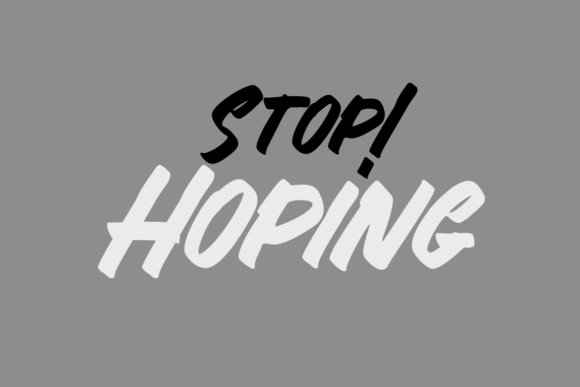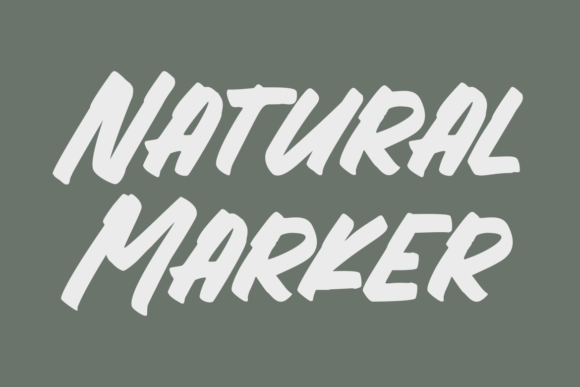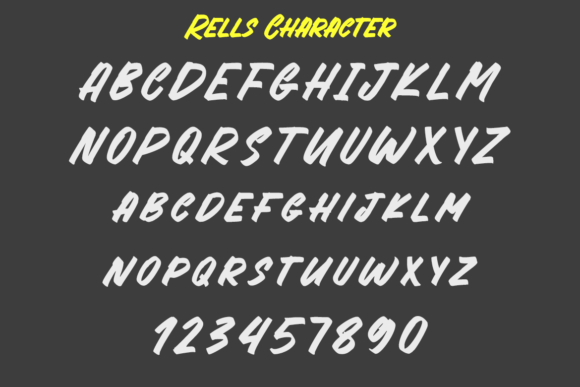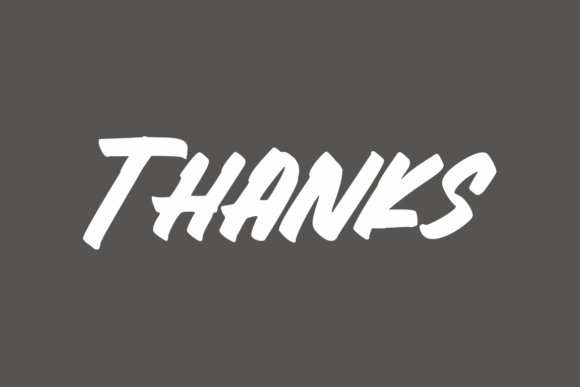
Rells Font
About Rells Font
Meet Rells, the epitome of coolness and creativity in the form of a paint-brushed, handwritten font. This versatile typeface is not just a font; it’s a dynamic tool ready to infuse a touch of artistic flair into a multitude of projects. Rells is your go-to choice for designing t-shirts, crafting impactful quotes, embellishing mugs, adorning tote bags, creating captivating cards, designing eye-catching banners, and amplifying your social media presence.
The beauty of Rells lies in its flexibility, making it suitable for a diverse range of creative endeavors. Its handwritten charm adds a personalized and authentic touch, elevating your designs and creating a connection with your audience. Whether you’re working on a bold statement for a t-shirt, a motivational quote for a poster, or a catchy social media post, Rells adapts seamlessly to your vision.
Picture Rells as your creative sidekick, effortlessly translating your ideas into visually striking projects. The brush strokes bring a dynamic and lively quality to the text, making it stand out and leave a lasting impression. Its cool and casual vibe makes it equally at home in laid-back designs as well as more impactful and expressive contexts.
The versatility of Rells extends beyond its aesthetic appeal – it’s a font designed to enhance your creative process. Embrace the brush strokes and let Rells be the bridge between your imagination and the visual impact you want to achieve. Dive into the world of possibilities as Rells becomes the key to unlocking creativity in your t-shirt designs, quotes, mugs, banners, and beyond.